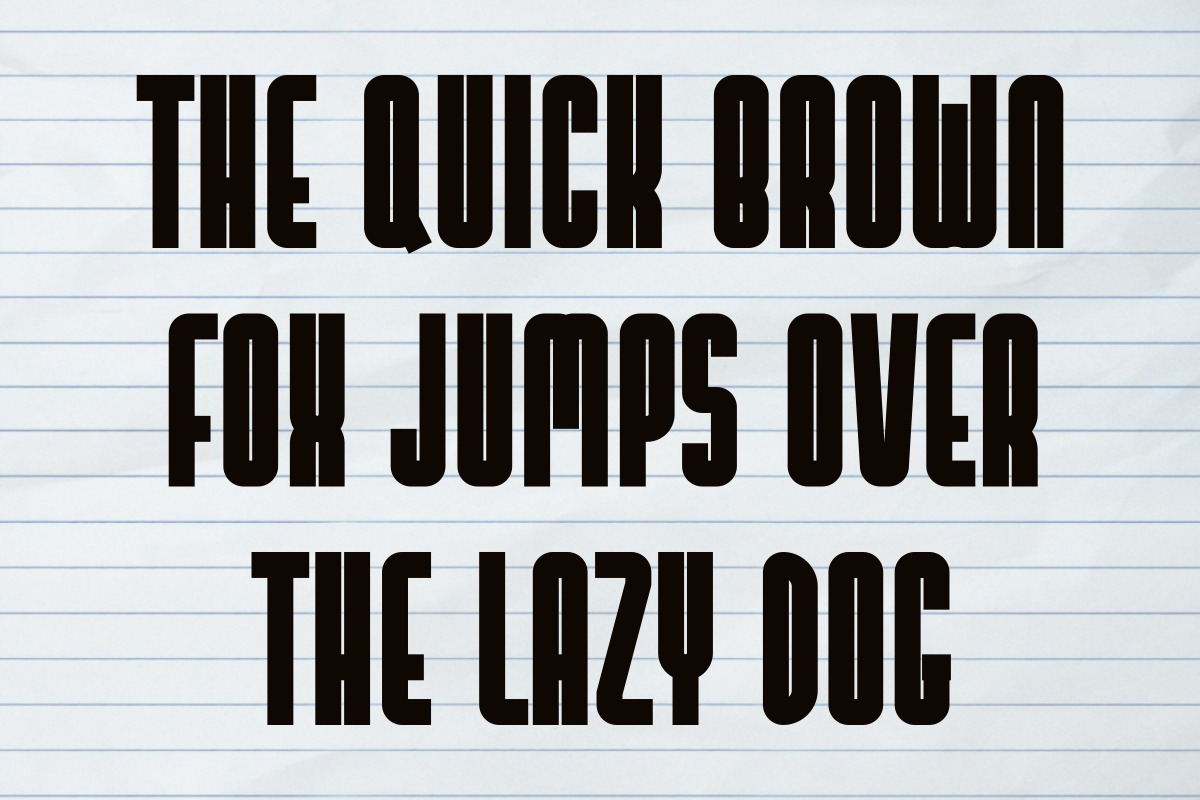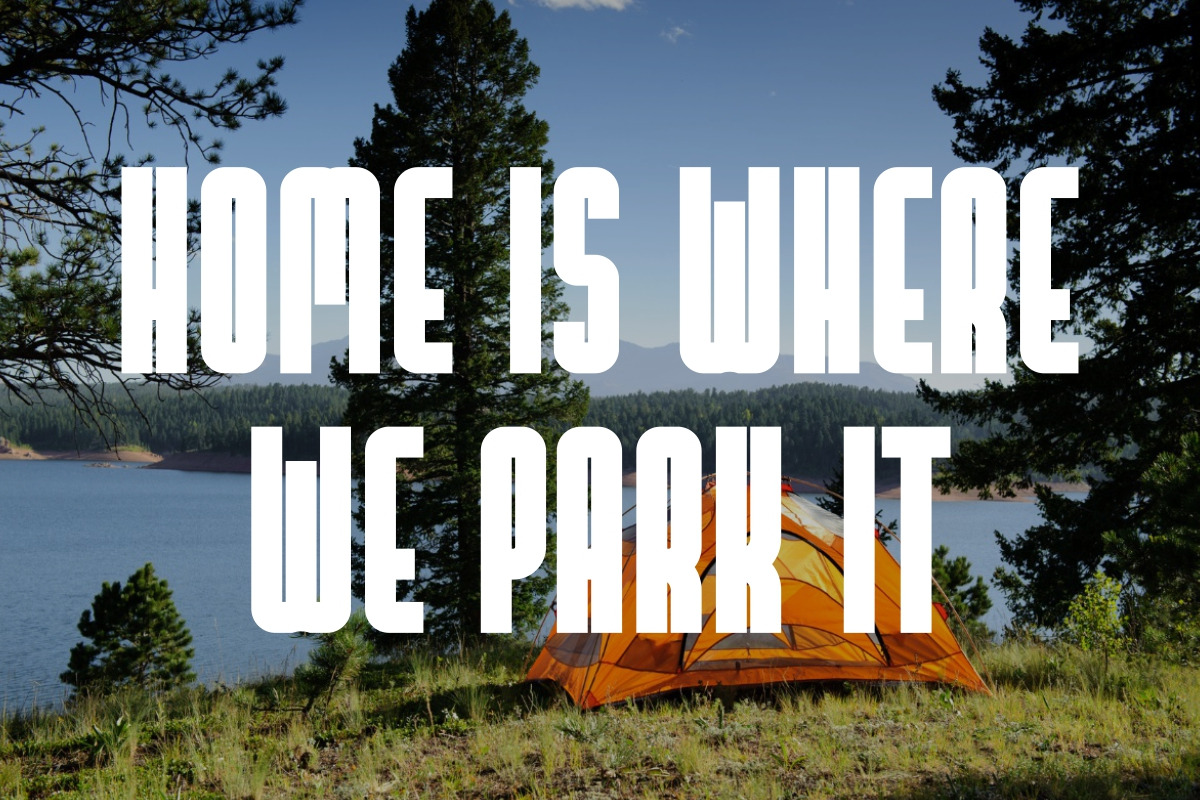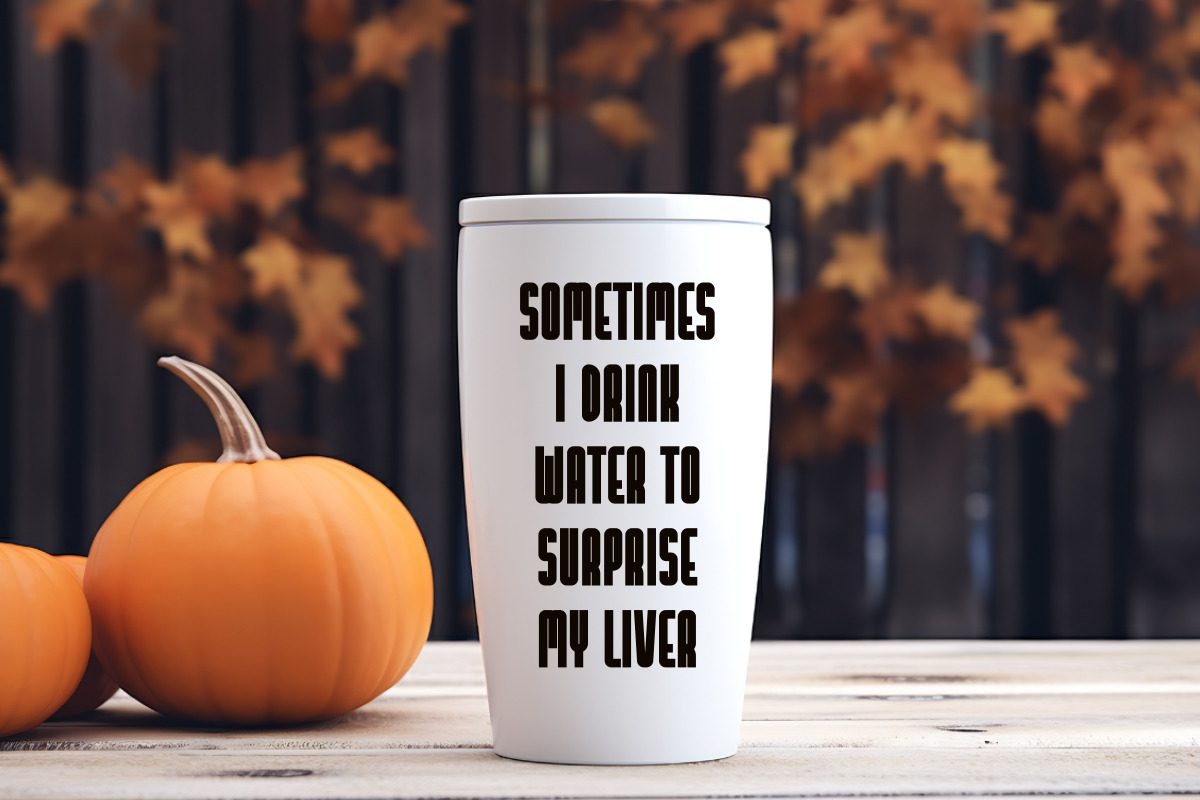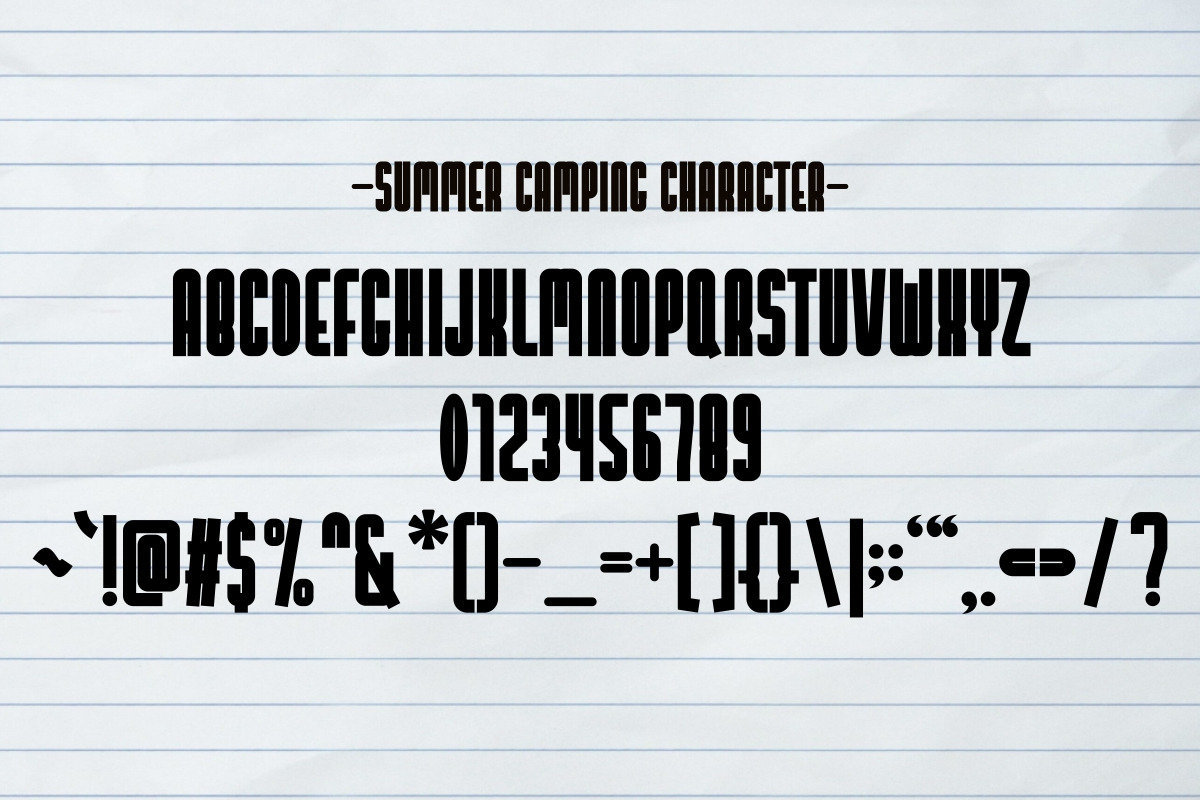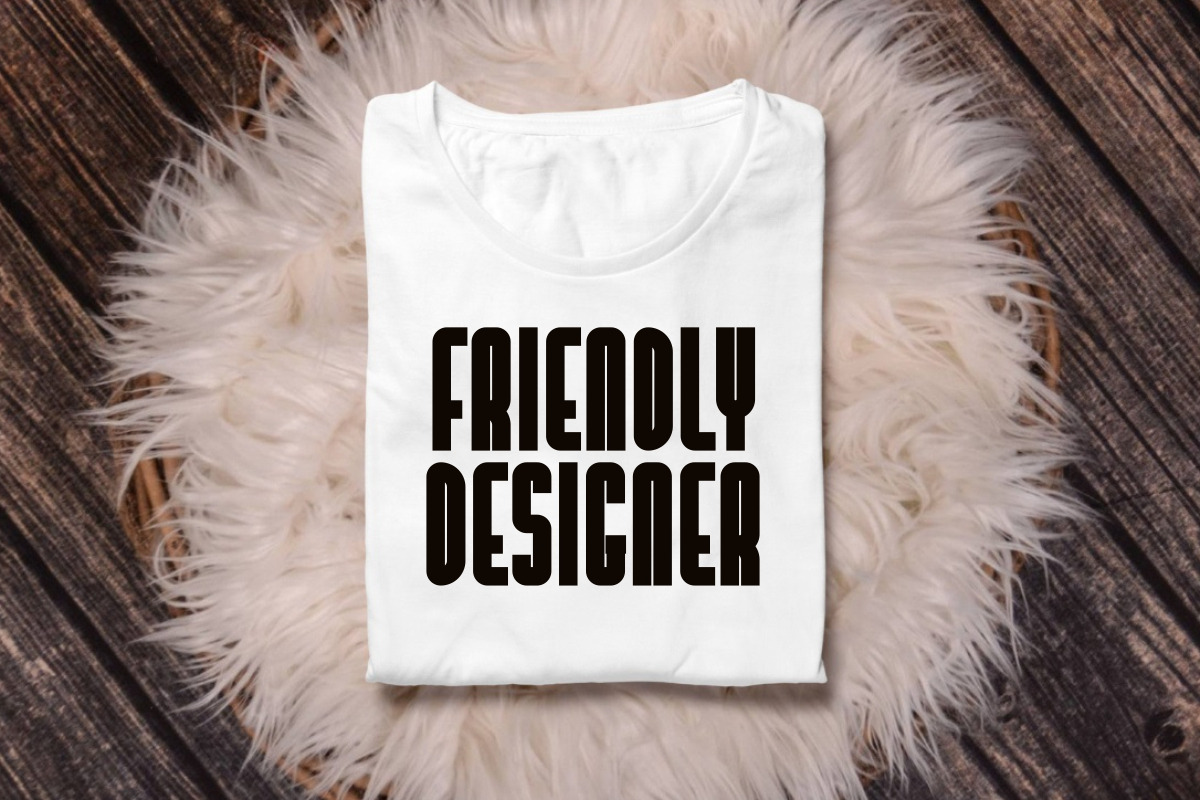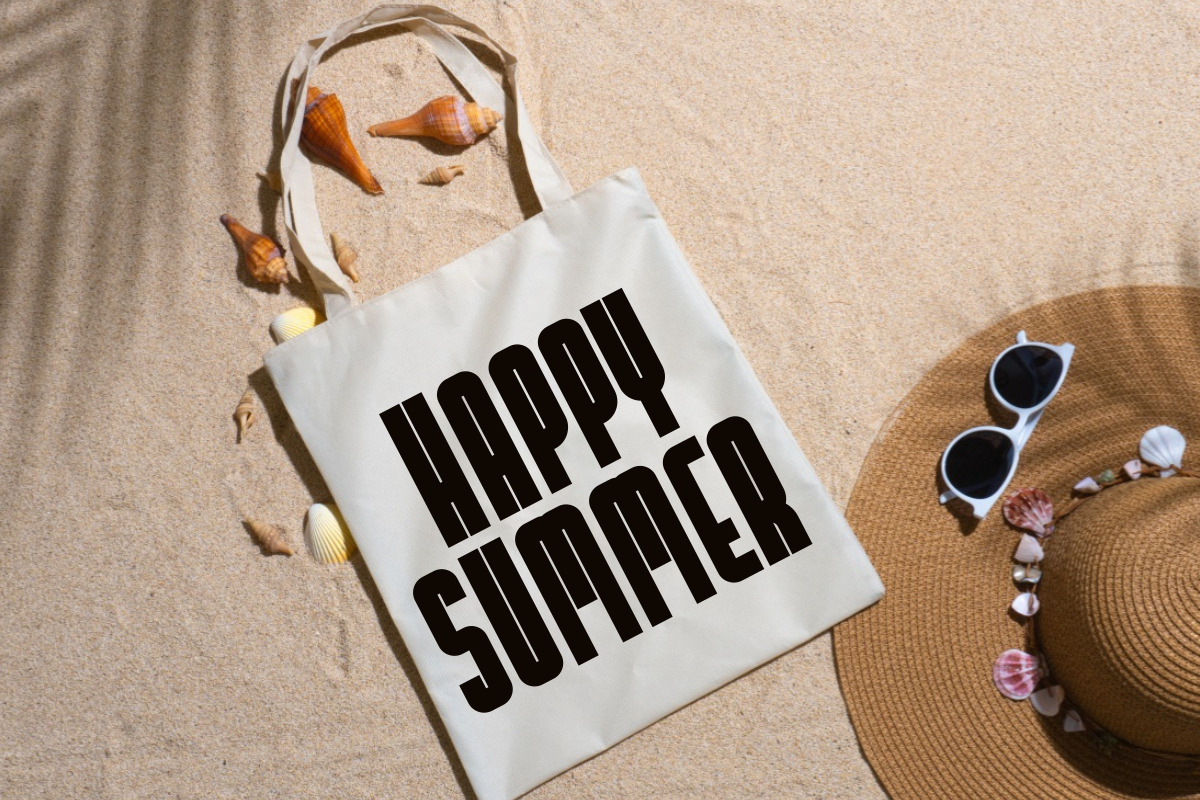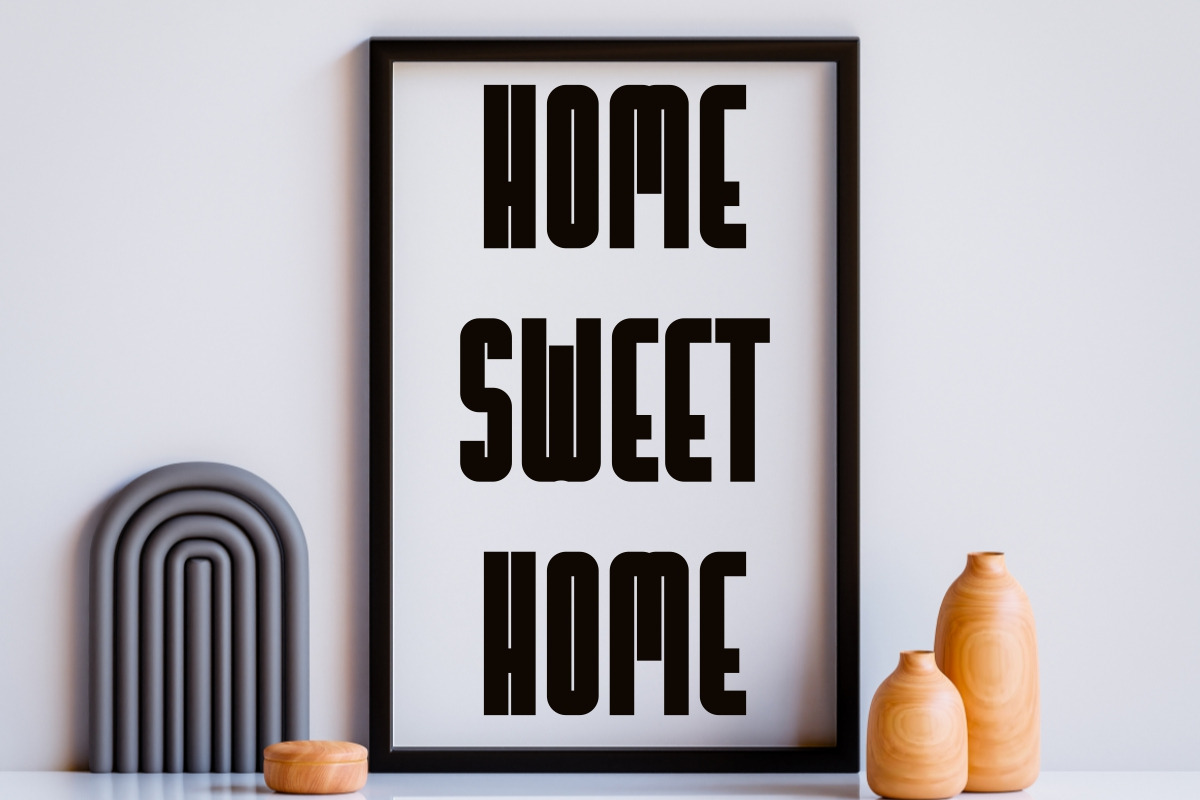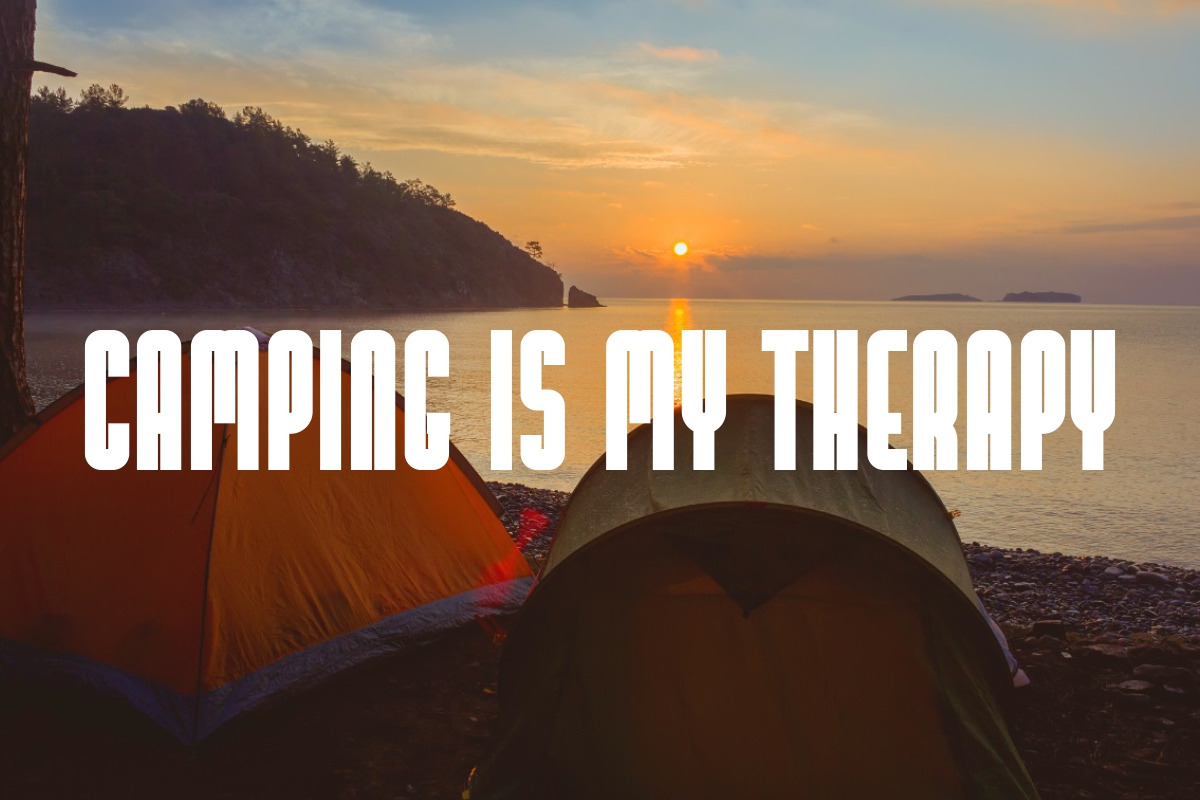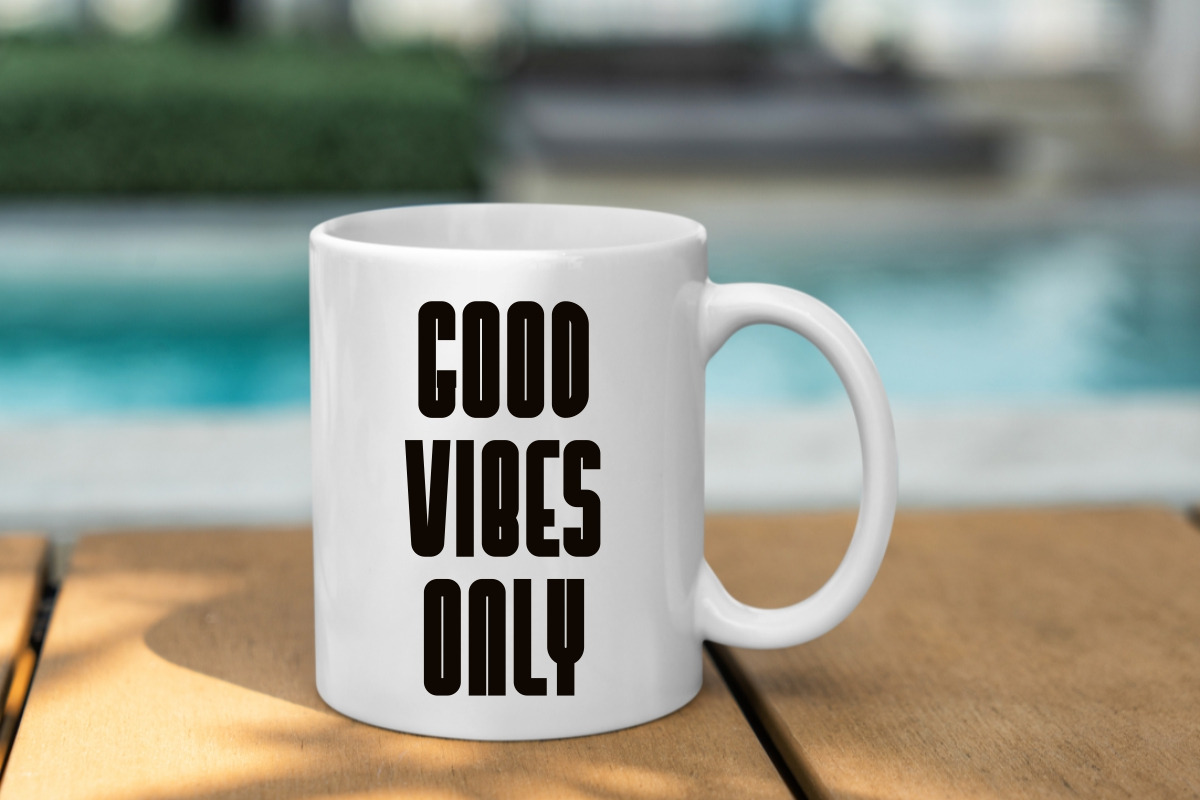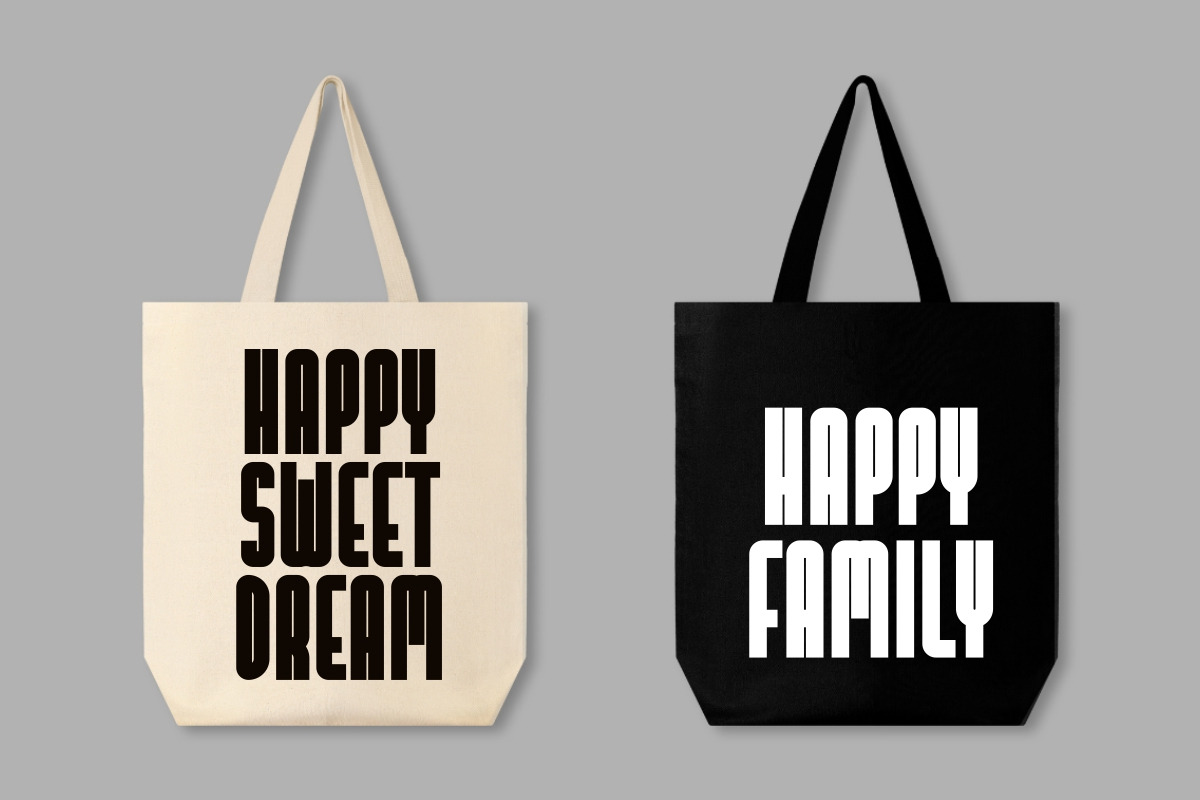
Summer Camping - Modern Vintage Font
Summer Camping is a modern vintage sans serif font with a clean and stylish aesthetic. This font brings a touch of nostalgic charm and contemporary elegance to any design. Perfect for quotes, backgrounds, posters, trendy t-shirts, chic mugs, tote bags, elegant frames, and cozy pillows.